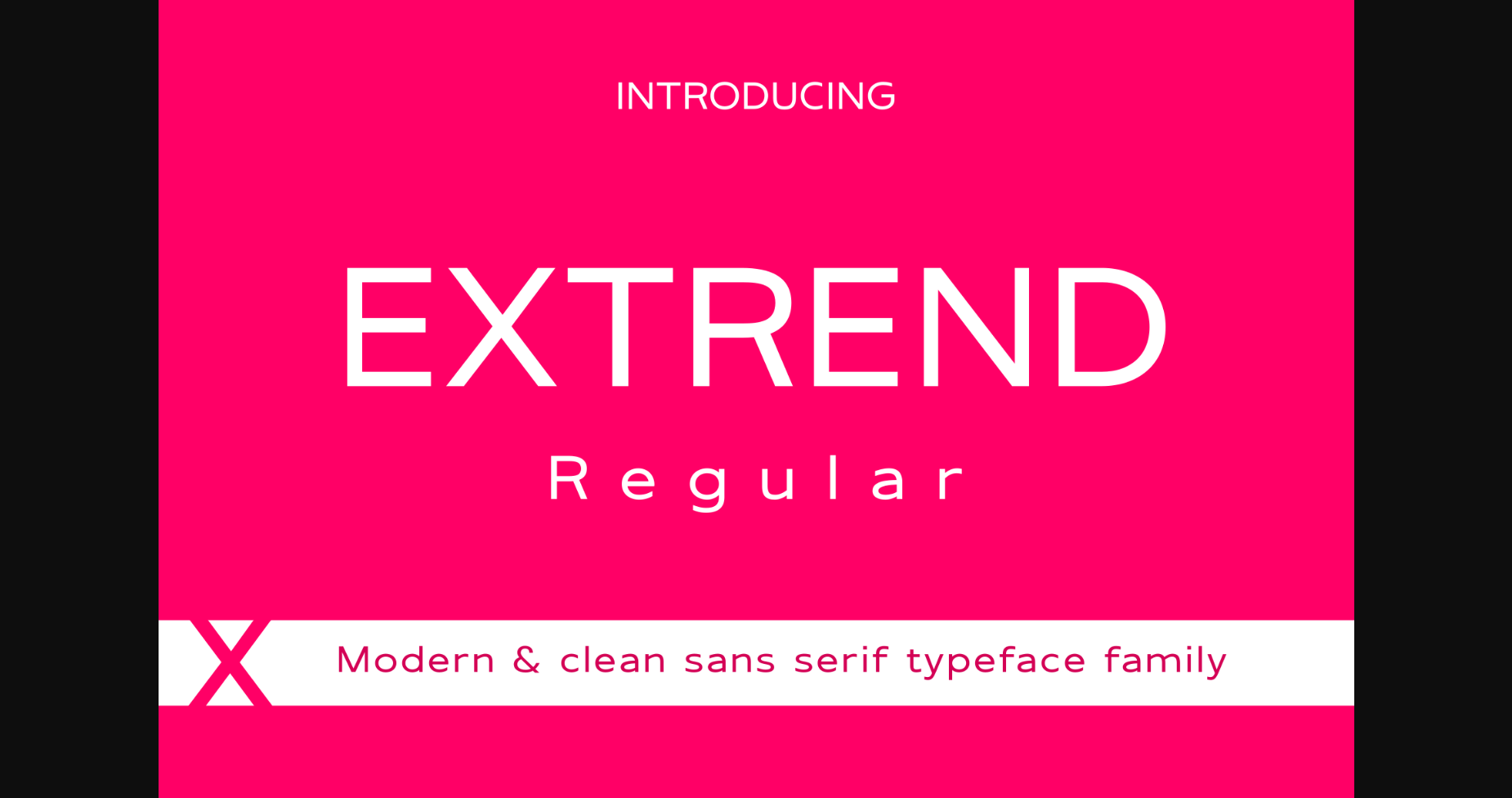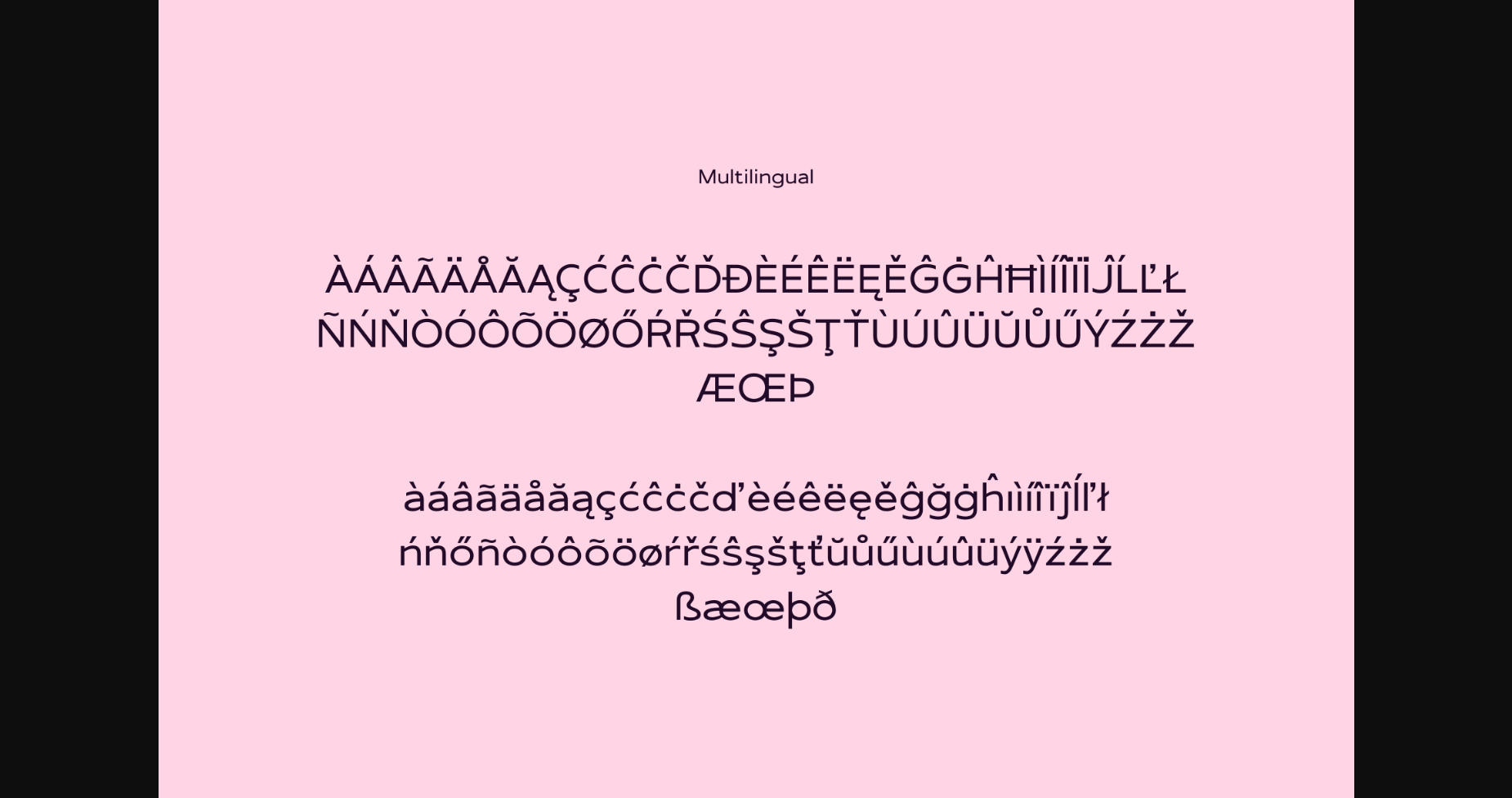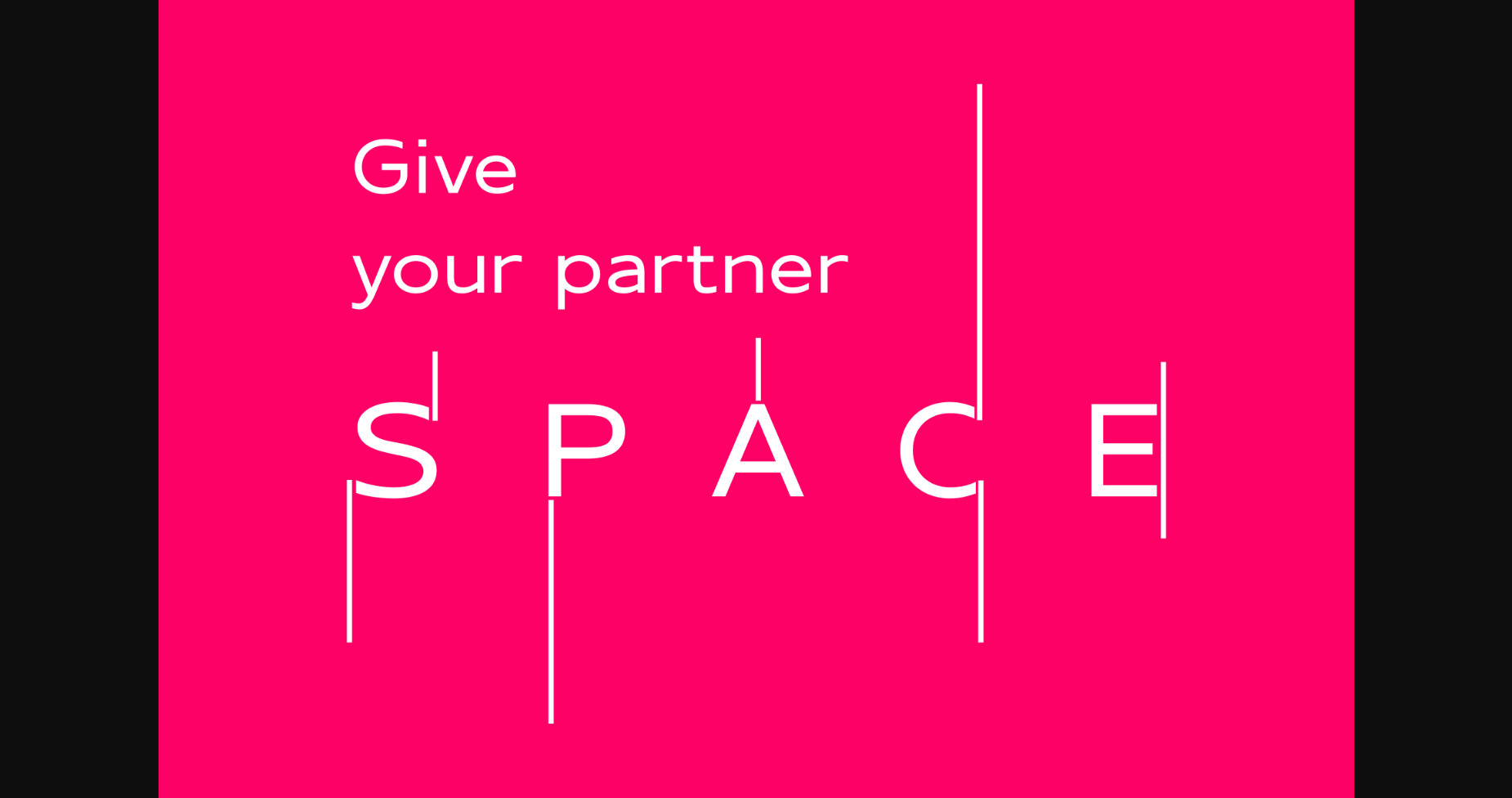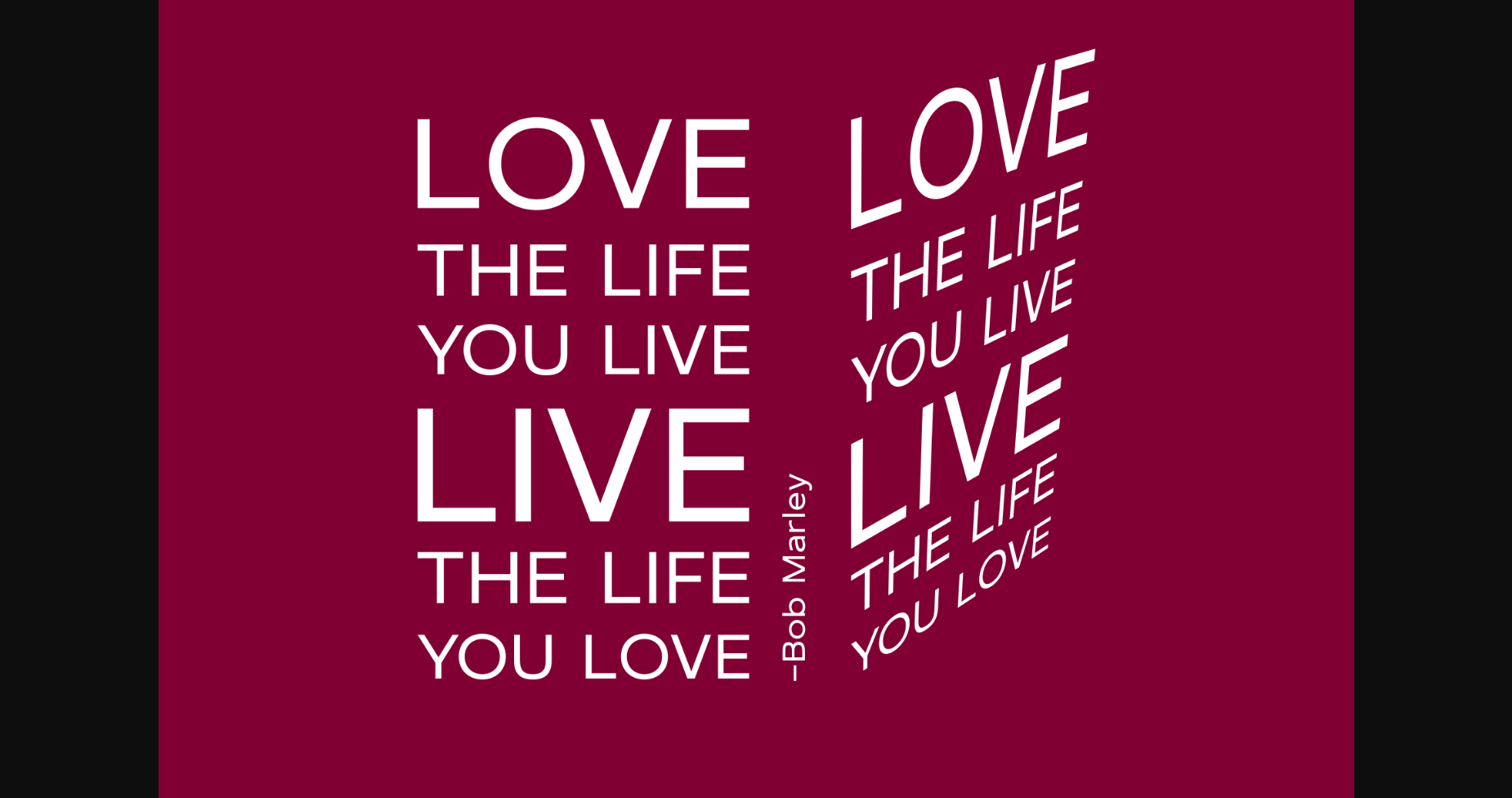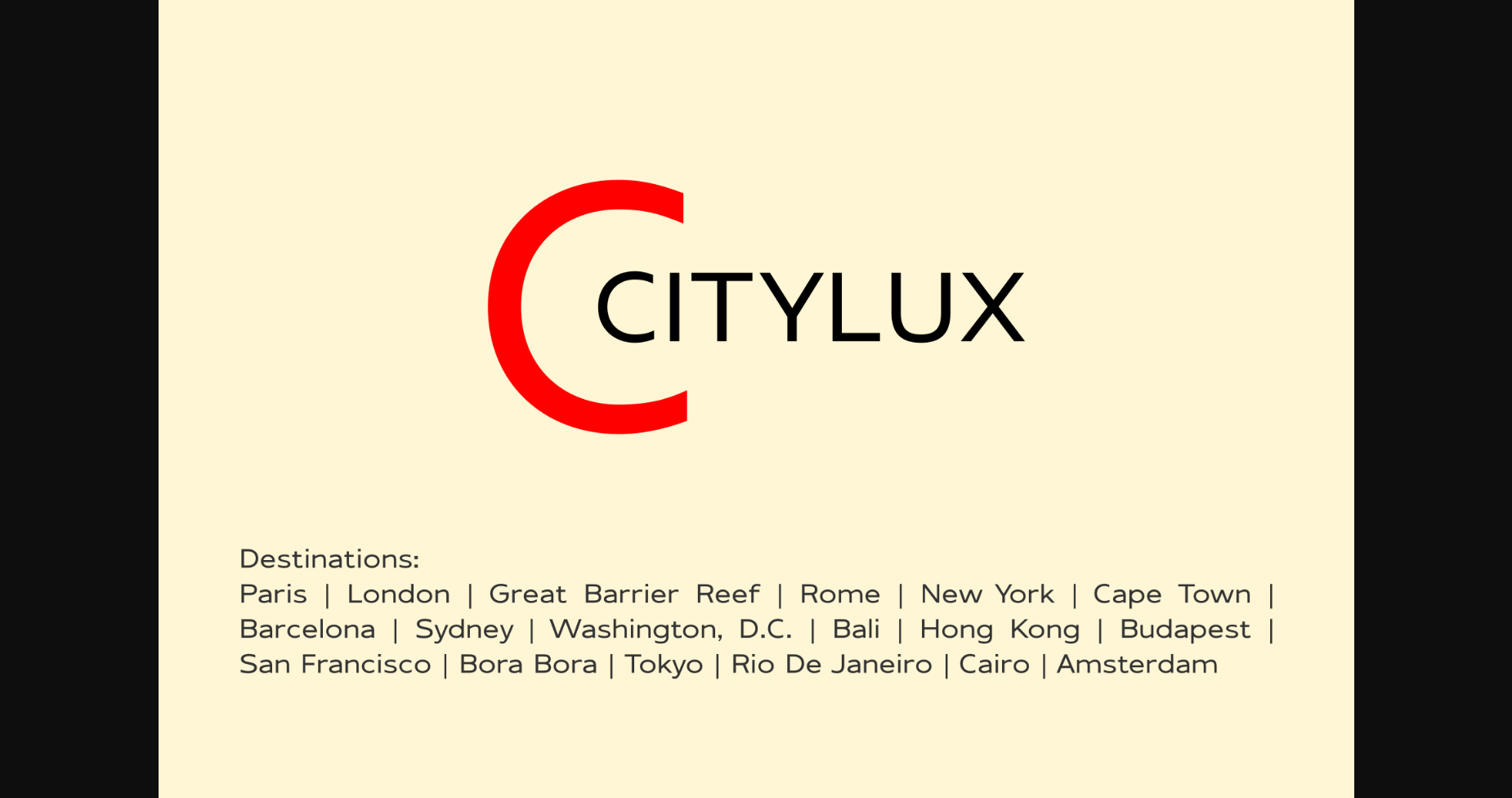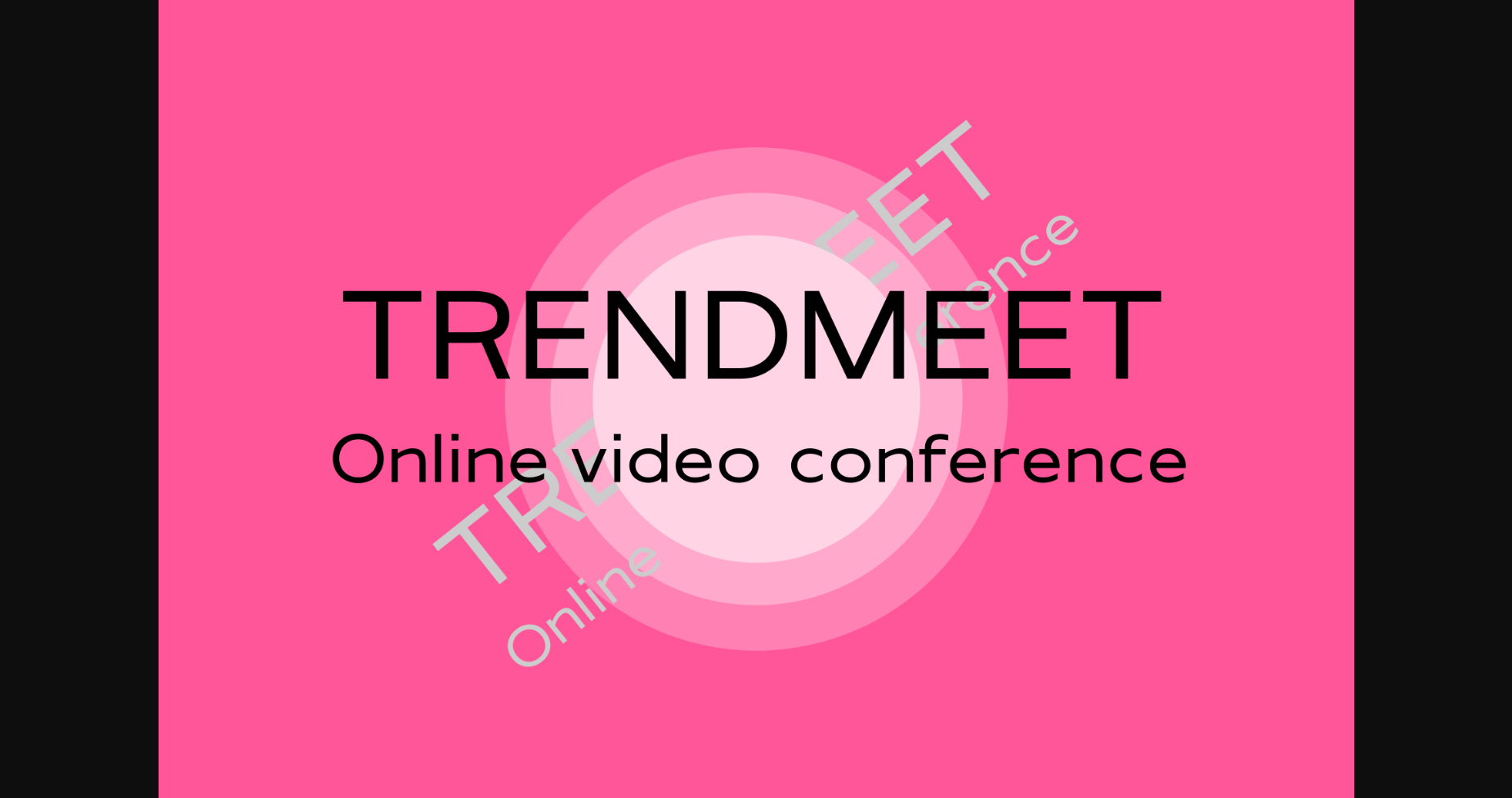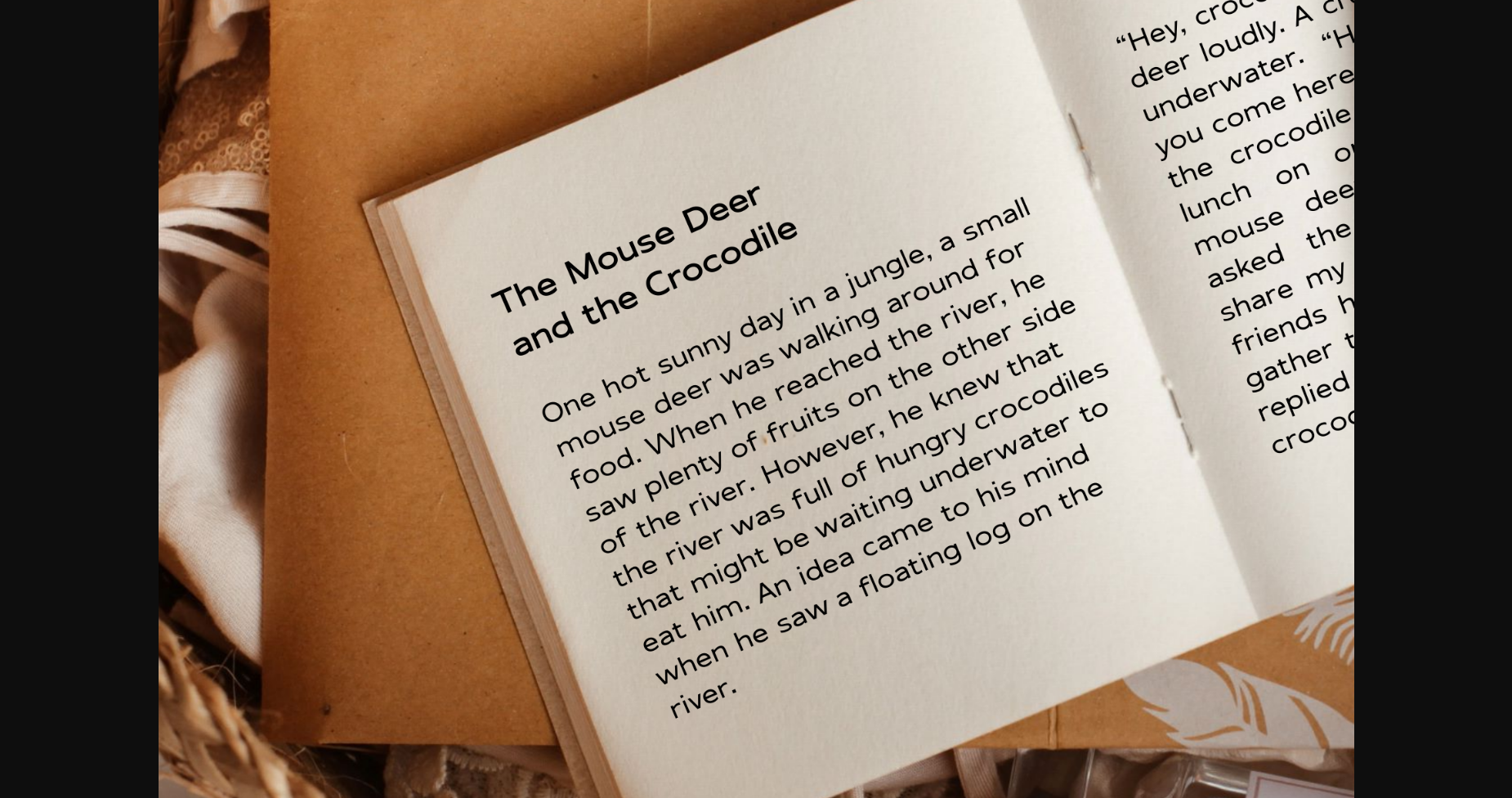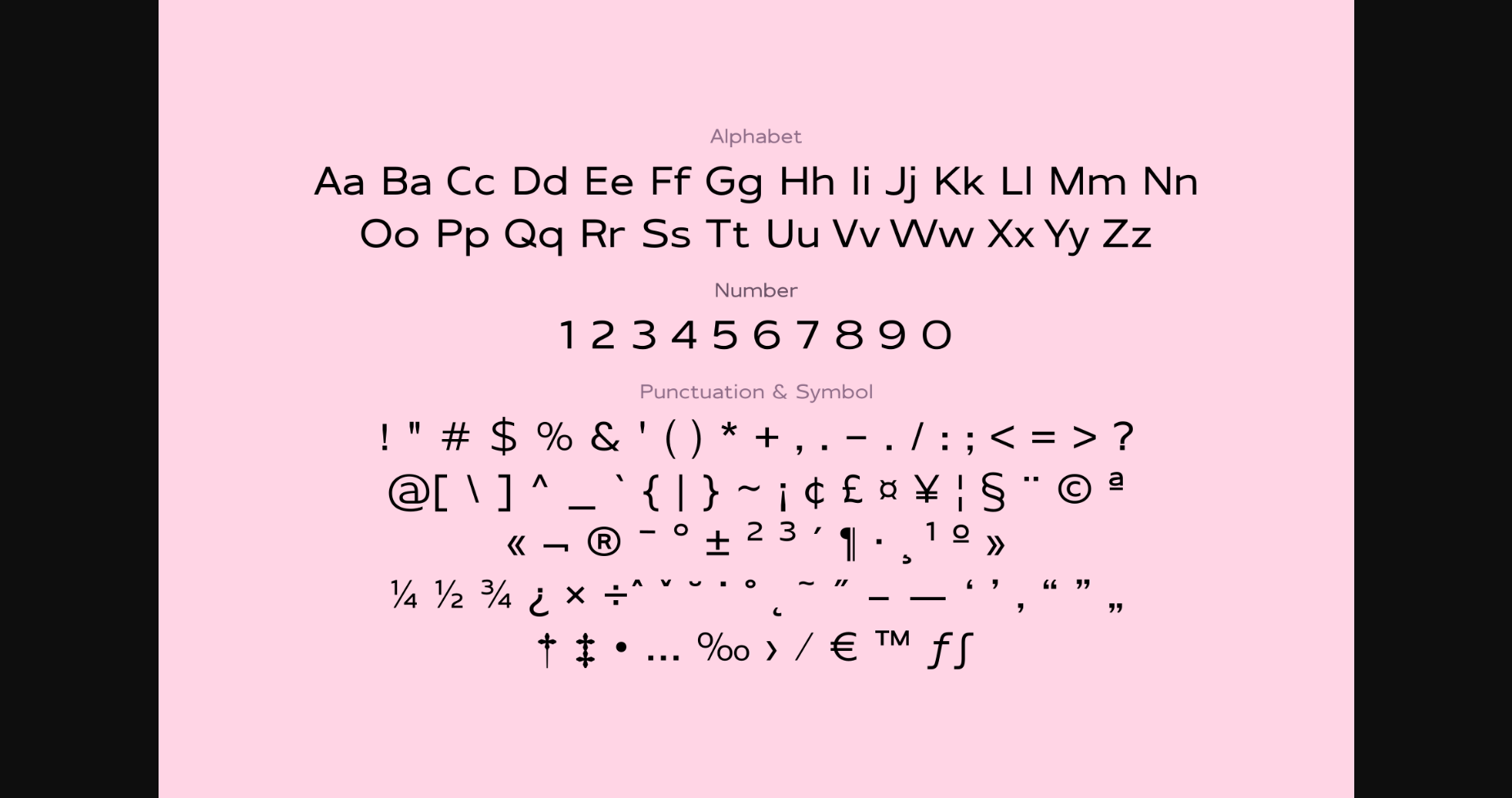
Extrend Regular Font
About Extrend Regular Font
Extrend is a sleek and modern sans-serif font, perfect for any design project. With its clean lines and simple structure, this font offers a contemporary and attractive look. Ideal for logos, websites, and marketing materials, it provides a professional and polished aesthetic that is sure to impress.